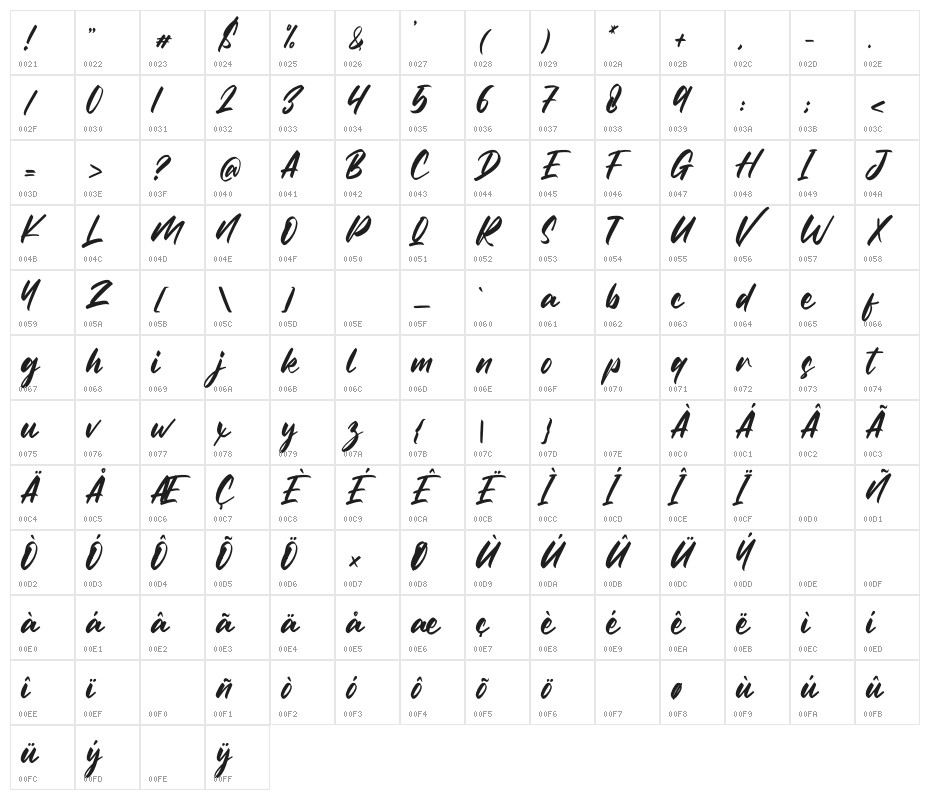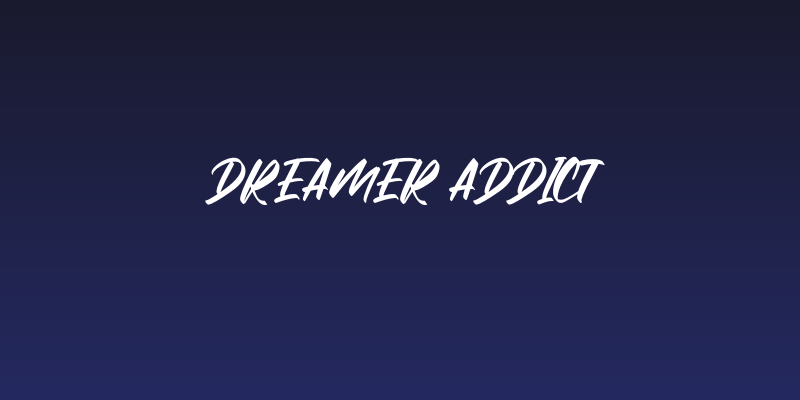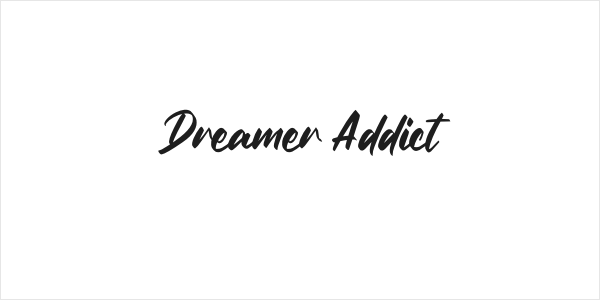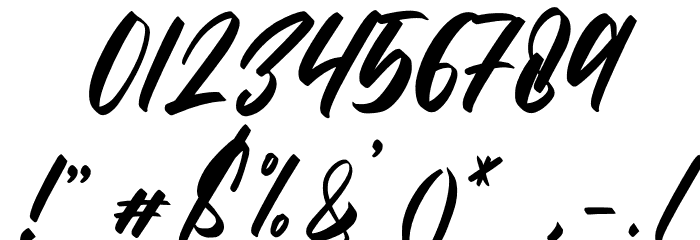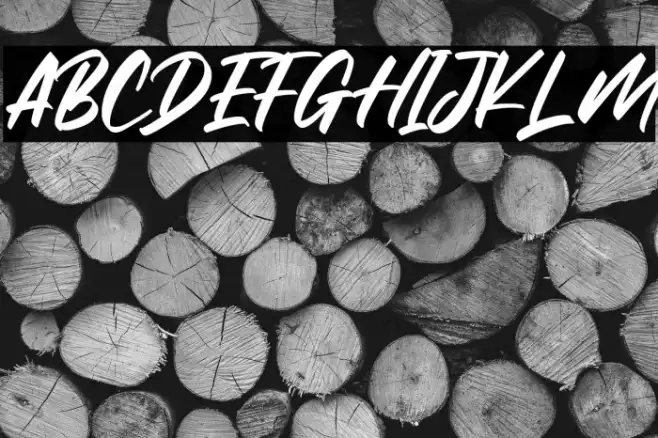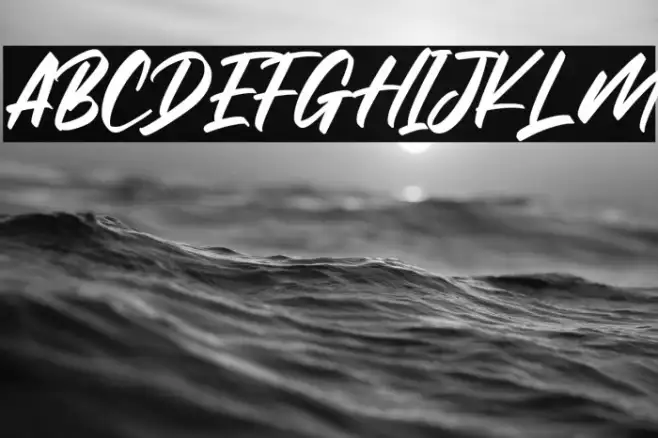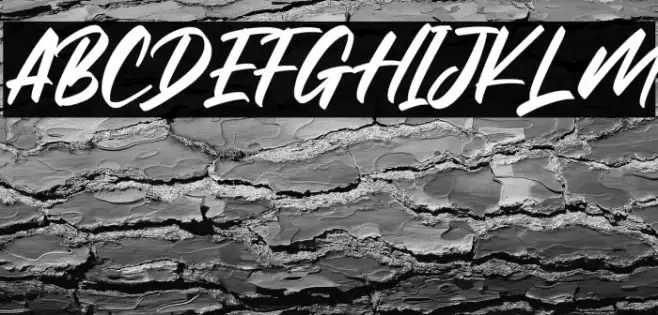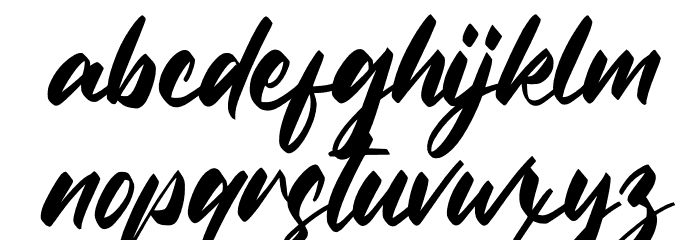
Dreamer Addict Font
Dreamer Addict Description
This font exudes a dynamic and energetic style with its bold, sweeping strokes and cursive flair. The uppercase letters are characterized by their dramatic slants and fluid connections, giving a sense of movement and spontaneity. The lowercase letters maintain this fluidity, with some characters featuring unique loops and swashes that add to the overall expressive nature. The numbers are equally bold and maintain the same cursive style, ensuring consistency throughout. Special characters are crafted with the same attention to detail, making them seamlessly integrate with the rest of the typeface. This font is perfect for projects that require a personal touch or a sense of artistic flair.